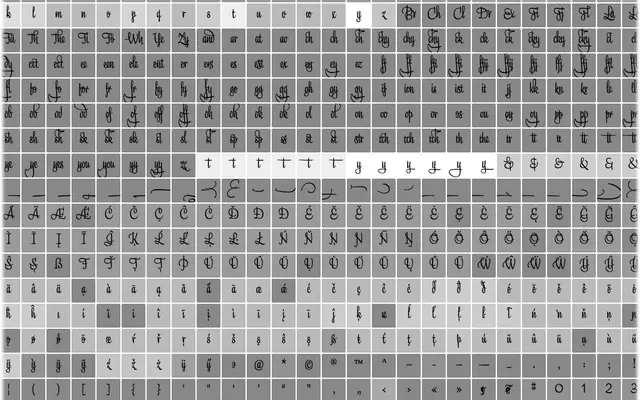
Liza Lettering™
An app-and-font system by Underware that generates millions of hand-lettering variations from a single typeface using context-sensitive glyphs, swashes and ligatures.
Rather than a conventional typeface, Liza Lettering pairs an OpenType font with a dedicated macOS app that lets users compose hand-lettered headlines with contextual glyph selection, a lettermixer, smart suggestions and an extensive swash set. The resulting lettering can be copied directly into InDesign, Illustrator or Photoshop, exported as PNG, or deployed as a webfont via clean CSS and HTML markup that leaves the underlying text content intact and indexable. The combination of app intelligence and a deeply encoded font creates a volume of variation described by Underware as exceeding the number of stars in the universe for even a modest word.
Liza Lettering is a script/lettering typeface with context-sensitive glyph variations, swashes and ligatures designed to mimic hand-lettering; it falls squarely in the script category with a focus on expressive, calligraphic lettering rather than formal script conventions.